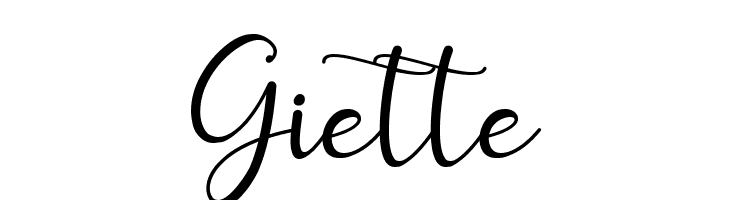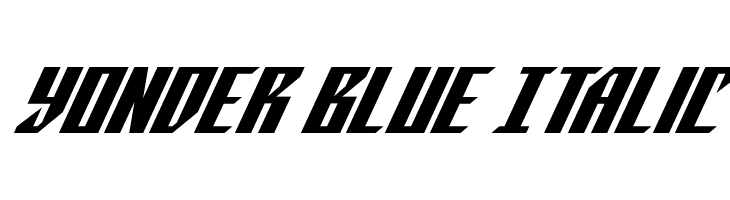
A bold, italic font with sharp angles and a futuristic style.
A bold, pixelated font with sharp, jagged edges.
An elegant script font with flowing, cursive style and intricate swashes.
A bold, playful font with rounded edges and a modern style.
A graceful and sophisticated cursive script font with smooth, connected letters.
A bold, jagged, and dynamic font with a distressed style.
A playful, handwritten font with smooth, flowing lines and a modern feel.
A bold, hand-painted style font with dynamic, irregular strokes.
A playful and whimsical font with curly, looping strokes and elegant flourishes.
A bold, expressive handwritten font with fluid, cursive strokes.